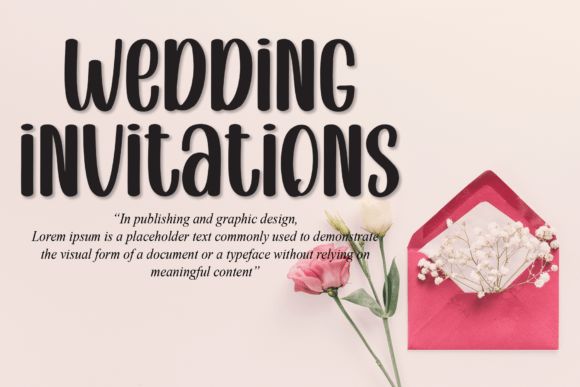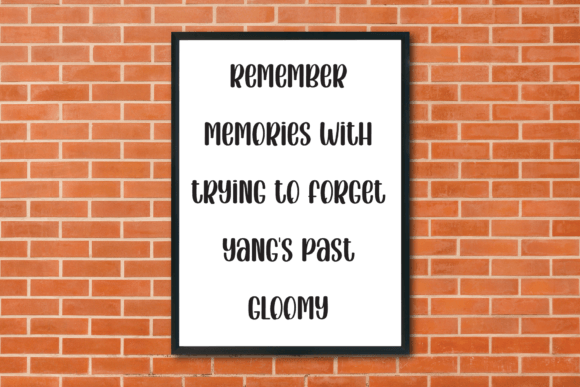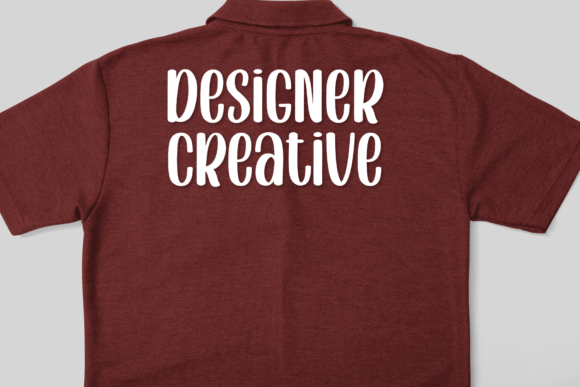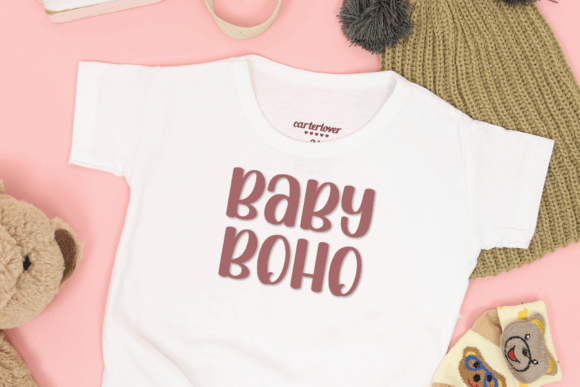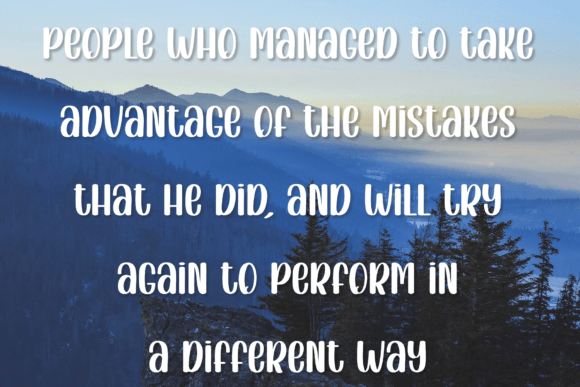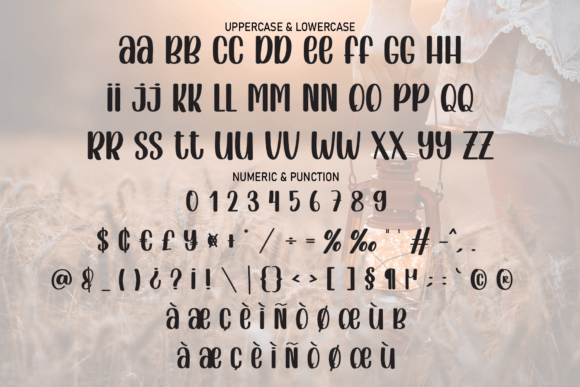
Discover the Charm of Fireflies Font: A Cool and Casual Handwritten Delight
Are you on the hunt for a font that adds a touch of whimsy and personality to your designs? Look no further than Fireflies Font, a cool and casual handwritten font that’s sure to capture your heart. Whether you’re a designer, crafter, or simply someone who loves to get creative, Fireflies Font is an excellent addition to your typographic toolkit.
A Font for Every Occasion
One of the best things about Fireflies Font is its versatility. This font is perfect for a wide range of projects, from crafts and digital design to presentations and greeting cards. Its casual, handwritten style makes it an excellent choice for:
• Crafting and scrapbooking: Add a personal touch to your handmade crafts and scrapbook pages with Fireflies Font.
• Digital design: Use Fireflies Font to create engaging social media graphics, blog posts, and website content.
• Presentations: Add a dash of personality to your presentations and make them more engaging.
• Greeting cards: Create beautiful, one-of-a-kind greeting cards for special occasions.
What Makes Fireflies Font So Special?
So, what sets Fireflies Font apart from other fonts? Here are just a few reasons why this font is sure to become your new favorite:
• Unique Character: Fireflies Font has a distinct, handwritten style that’s both playful and elegant.
• Easy to Read: Despite its casual style, Fireflies Font is surprisingly easy to read, making it perfect for both digital and print projects.
Tips for Using Fireflies Font in Your Designs
Now that you’re excited about Fireflies Font, here are some tips for incorporating it into your designs:
• Pair it with Other Fonts: Fireflies Font pairs beautifully with other fonts, so don’t be afraid to experiment with different combinations.
• Use it for Headings and Titles: Fireflies Font is perfect for headings and titles, where its playful style can really shine.
• Add Some Color: Fireflies Font looks great in a range of colors, so don’t be afraid to add some personality to your designs with bold, bright hues.
Fireflies Font is a cool and casual handwritten font that’s perfect for designers, crafters, and anyone who loves to get creative. With its unique character, ease of use, and high versatility, it’s an excellent addition to any typographic toolkit. Whether you’re working on a craft project, digital design, or presentation, Fireflies Font is sure to add a touch of personality and whimsy. So why not give it a try and see what amazing designs you can create?